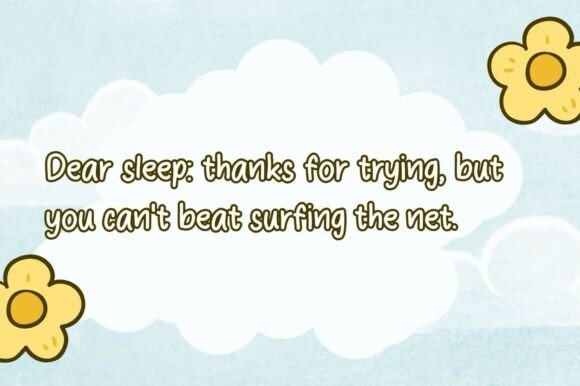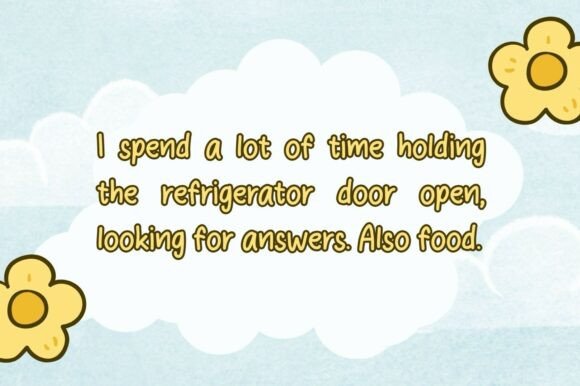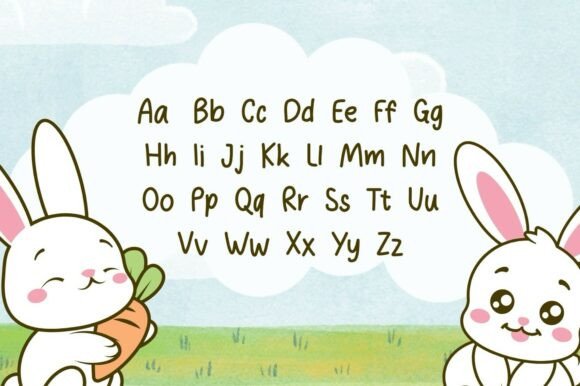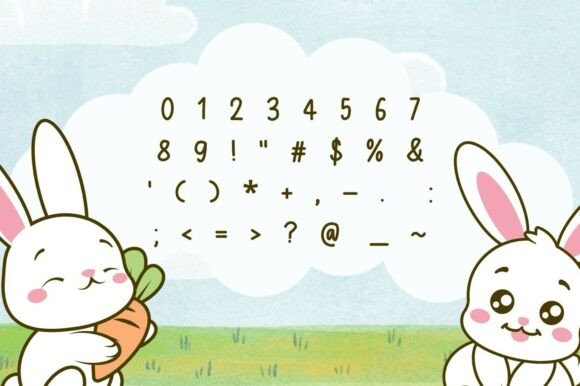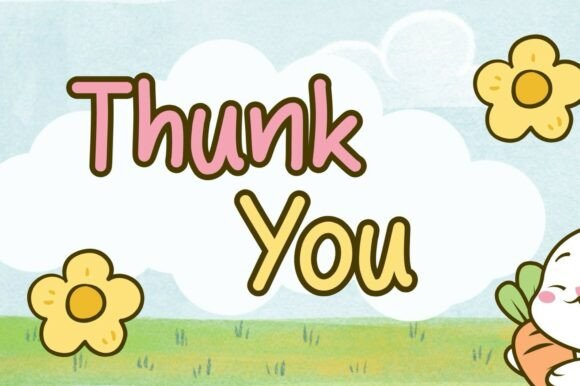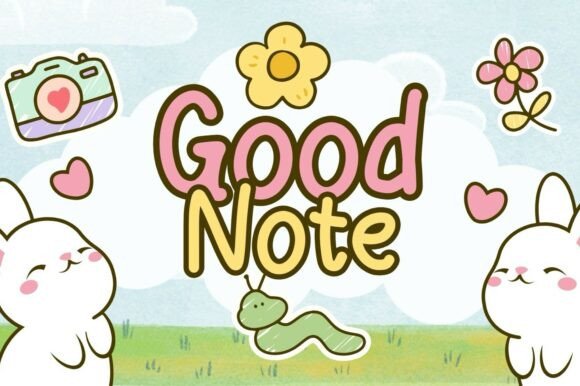
Good Note Font: Elevate Your Digital Notes with a Touch of Handwritten Warmth
In the digital age, where communication is often reduced to typed texts and emails, the art of handwritten notes has become a rare and cherished commodity. For those who yearn for the tactile experience of putting pen to paper, but still want to enjoy the convenience of digital communication, the Good Note font is here to revolutionize the way you create digital notes. This beautifully crafted handwriting font is designed to bring a touch of warmth and authenticity to your digital journaling, planners, and heartfelt messages.
The Charm of Good Note Font
Good Note is more than just a typeface; it’s an experience. This handwriting font is meticulously designed to mimic the feel of a real pen on paper, capturing the imperfections and nuances that make handwritten notes so endearing. With Good Note, you can add a personal touch to your digital communication, making it feel more intimate and sincere. Whether you’re annotating a lecture, organizing your weekly goals, or adding a personal signature to your digital scrapbooks, Good Note flows naturally across the page, creating a seamless and organic experience.
Perfect for Digital Journaling and Crafting
For designers and crafters, Good Note font is a treasure trove of creative possibilities. Imagine being able to create digital journals, planners, and stationery that exude the warmth and personality of handwritten notes. With Good Note, you can:
- Create stunning digital journals that feel like a personal diary
- Design planners that are both functional and aesthetically pleasing
- Add a personal touch to your digital stationery and greeting cards
- Craft heartfelt messages that feel like a handwritten letter
The Benefits of Good Note Font
So, what sets Good Note font apart from other handwriting fonts? Here are just a few benefits that make it a must-have for designers and crafters:
- Authentic feel: Good Note font has a delightfully messy and authentic feel that makes it perfect for creating digital notes that feel like handwritten ones.
- Readability: Despite its imperfect charm, Good Note font is remarkably clean and easy to read, making it perfect for digital communication.
- Versatility: Good Note font can be used for a wide range of creative projects, from digital journaling to crafting and design.
- Emotional connection: With Good Note font, you can create digital notes that feel personal and intimate, helping you connect with your audience on a deeper level.
Tips for Using Good Note Font
To get the most out of Good Note font, here are a few tips to keep in mind:
- Experiment with colors: Good Note font looks stunning in a range of colors, from soft pastels to rich jewel tones. Experiment with different colors to find the perfect hue for your project.
- Mix and match: Combine Good Note font with other fonts and graphics to create a unique and visually appealing design.
- Play with texture: Add texture to your design by incorporating subtle patterns and backgrounds that complement Good Note font.
In a world where digital communication can often feel cold and impersonal, Good Note font is a breath of fresh air. With its charming, handwritten aesthetic and remarkable readability, Good Note font is the perfect tool for designers and crafters who want to add a touch of warmth and personality to their digital notes. Whether you’re creating digital journals, planners, or heartfelt messages, Good Note font is sure to elevate your designs and bring a smile to your audience’s face. So why not give it a try? Turn your digital notes into a work of art with Good Note font, and discover the joy of handwritten communication in the digital age.